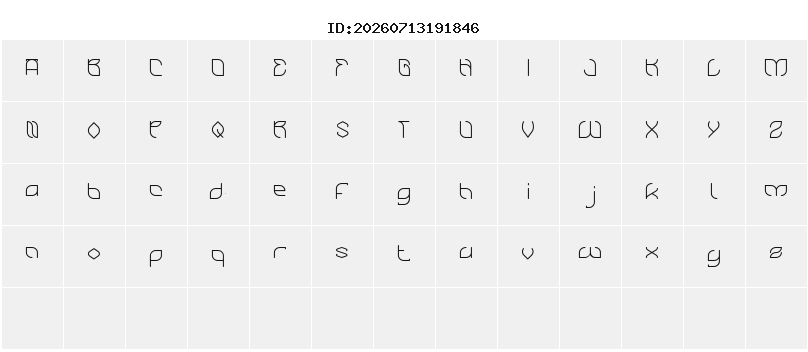
• Font Name: BAMBOO chopsticks
• Full Font Name: BAMBOO chopsticks
• Version: Version 1.00 February 3, 2013, initial release
About BAMBOO chopsticks.ttf
BAMBOO chopsticks.ttf is a modern, elegant sans-serif font designed for ultimate readability and visual harmony. Perfect for branding, headlines, web design, and print materials.